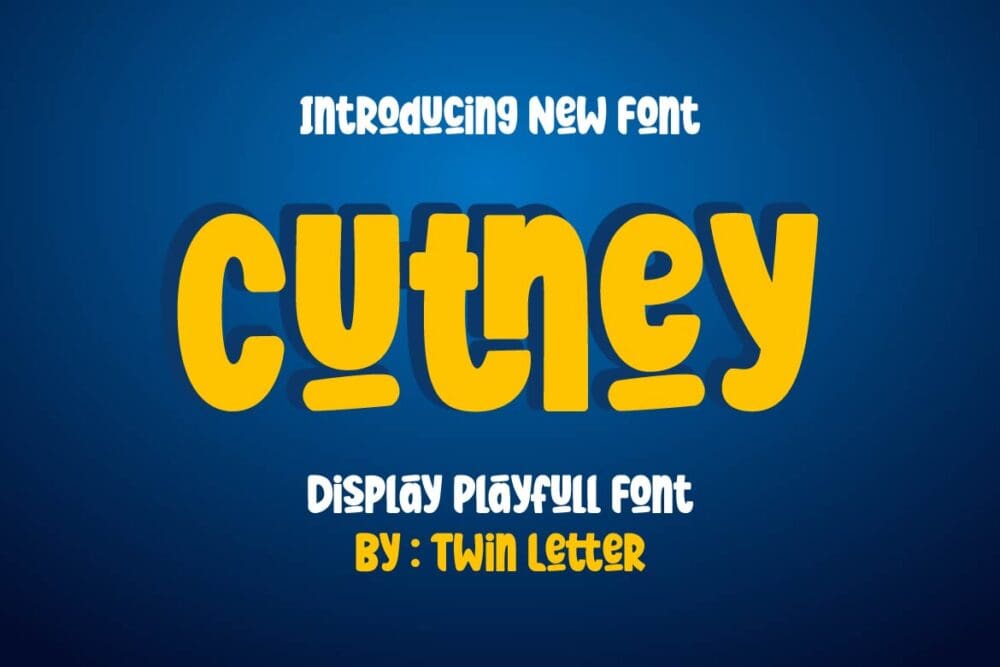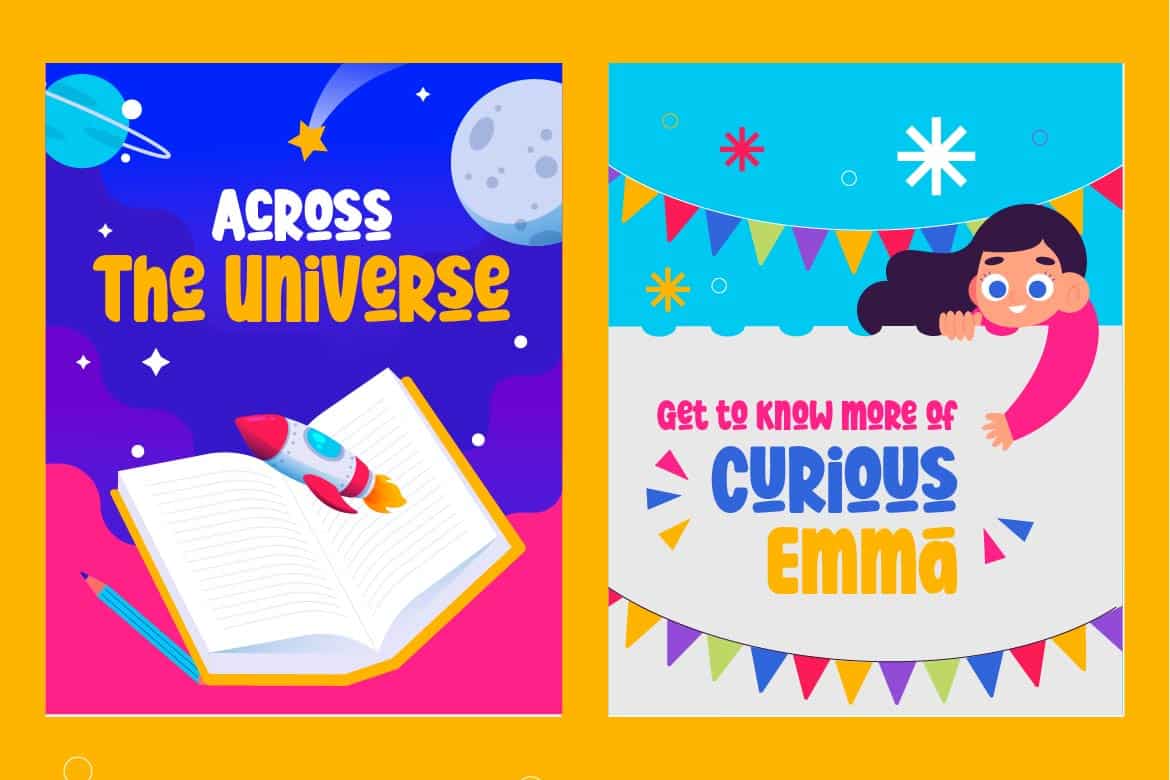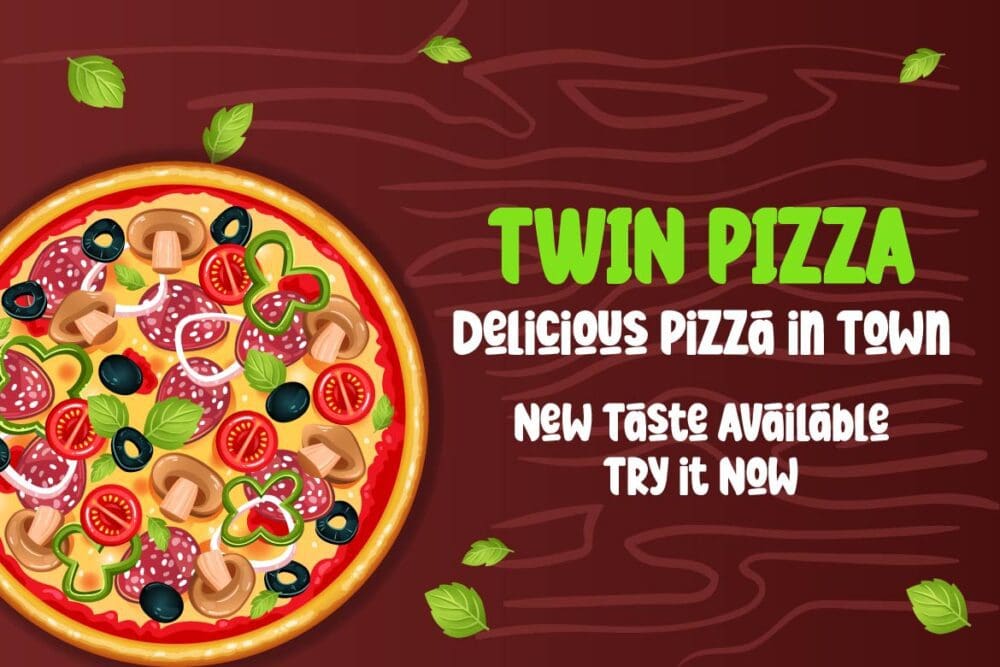
Cutney Font
Cutney Font is a display typeface that has been meticulously developed to give the idea of a display that is fun, easy, and versatile to use. Use this font for your outstanding project, and you and your audience will be ecstatic to witness a stunning, proportionate presentation.